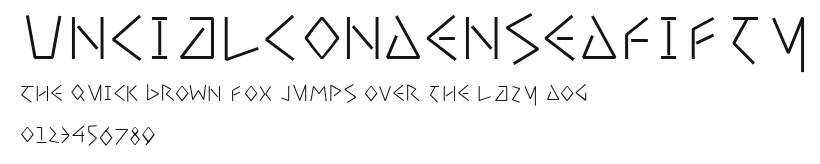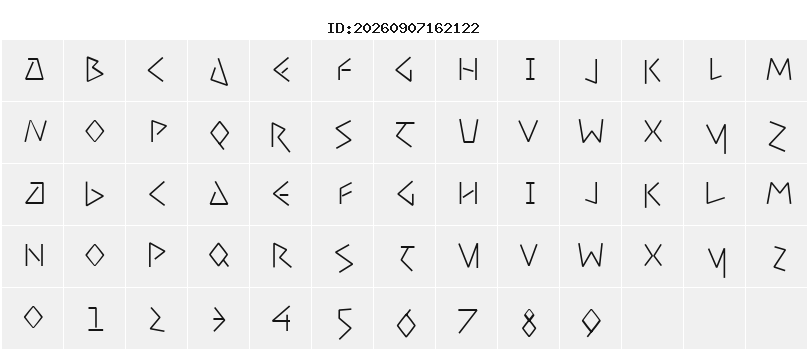
UncialCondensedFifty Preview
About UncialCondensedFifty.ttf
UncialCondensedFifty.ttf is a modern, elegant sans-serif font designed for ultimate readability and visual harmony. Perfect for branding, headlines, web design, and print materials.